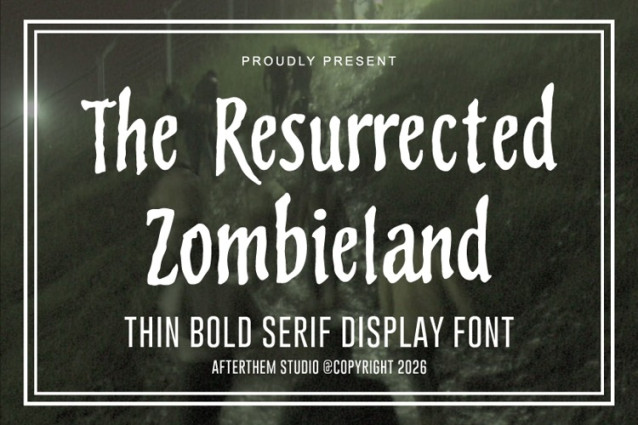
The Resurrected Zombieland Font
The Resurrected Zombieland Font is a simple and modern display font suitable for quotes, logos, headings, titles, and many more. Use it on any of your creative projects, and your designs will become outstanding!